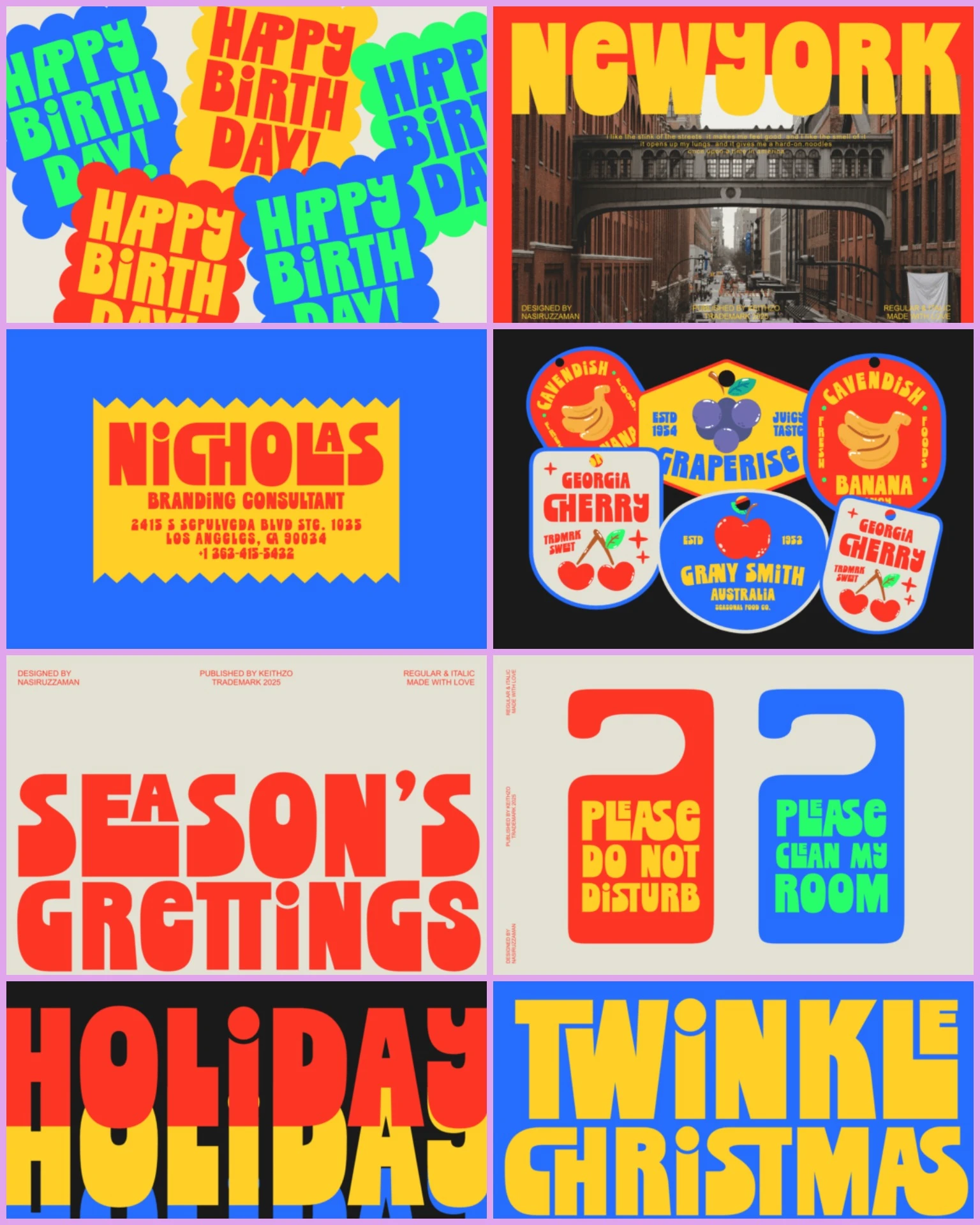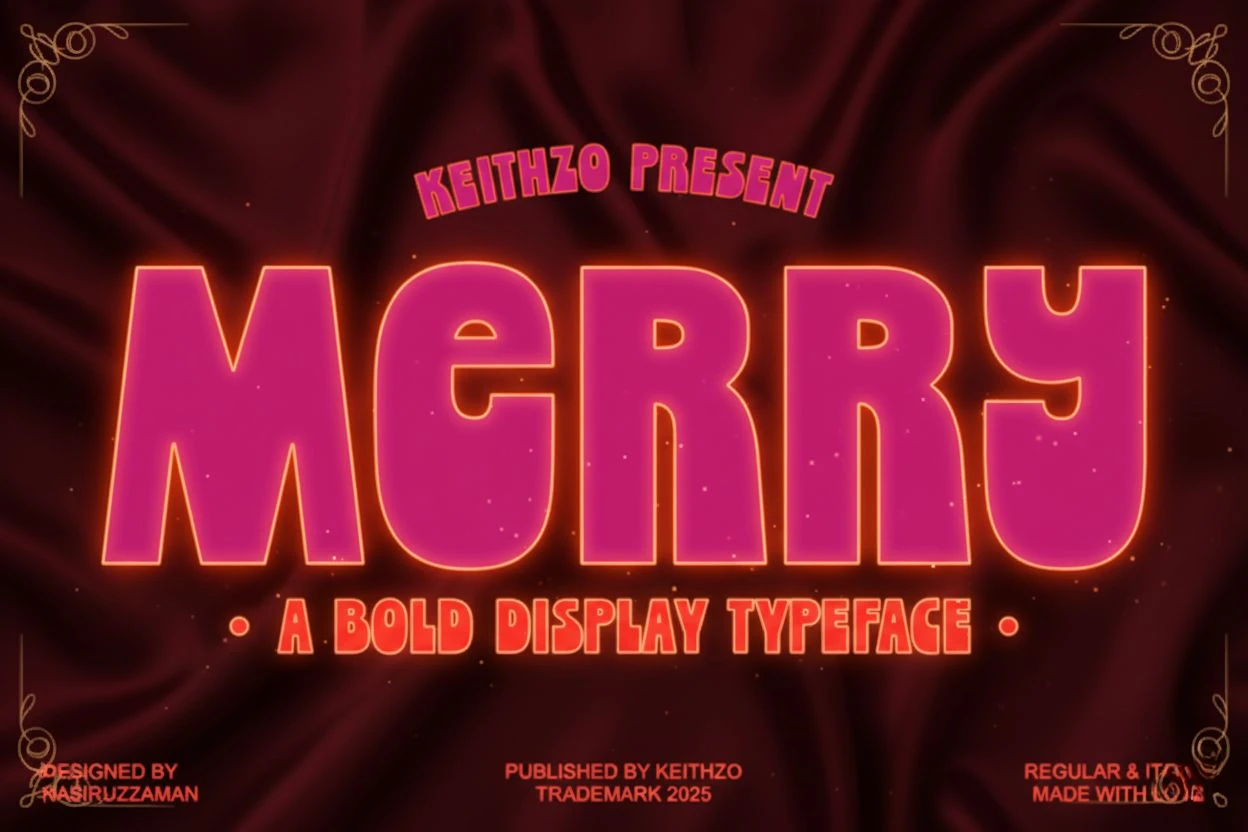
Merry Display Font is a bold, vivacious, and retro-inspired typeface crafted to instantly capture attention and bring energetic personality to your designs. With its oversized rounded shapes, cheerful contours, and playful proportions, Merry creates a warm, friendly, and whimsical aesthetic perfect for festive and high-spirited projects.
This bold display typeface shines in eye-catching titles, standout headlines, creative branding, product packaging, magazine layouts, and promotional materials. Its retro charm blends seamlessly with modern design trends, making it ideal for Christmas themes, holiday campaigns, kids’ graphics, culinary branding, T-shirt designs, social media posts, and fun merchandise.
Merry includes Regular and Italic styles, giving designers flexibility and variation for dynamic layouts. Fully PUA-encoded, it allows easy access to all alternate characters, swashes, and stylistic features in any software.
Whether you’re designing editorial headlines, product labels, Christmas graphics, posters, or bold retro visuals, Merry Display Font brings vibrancy, charm, and expressive character to every project.